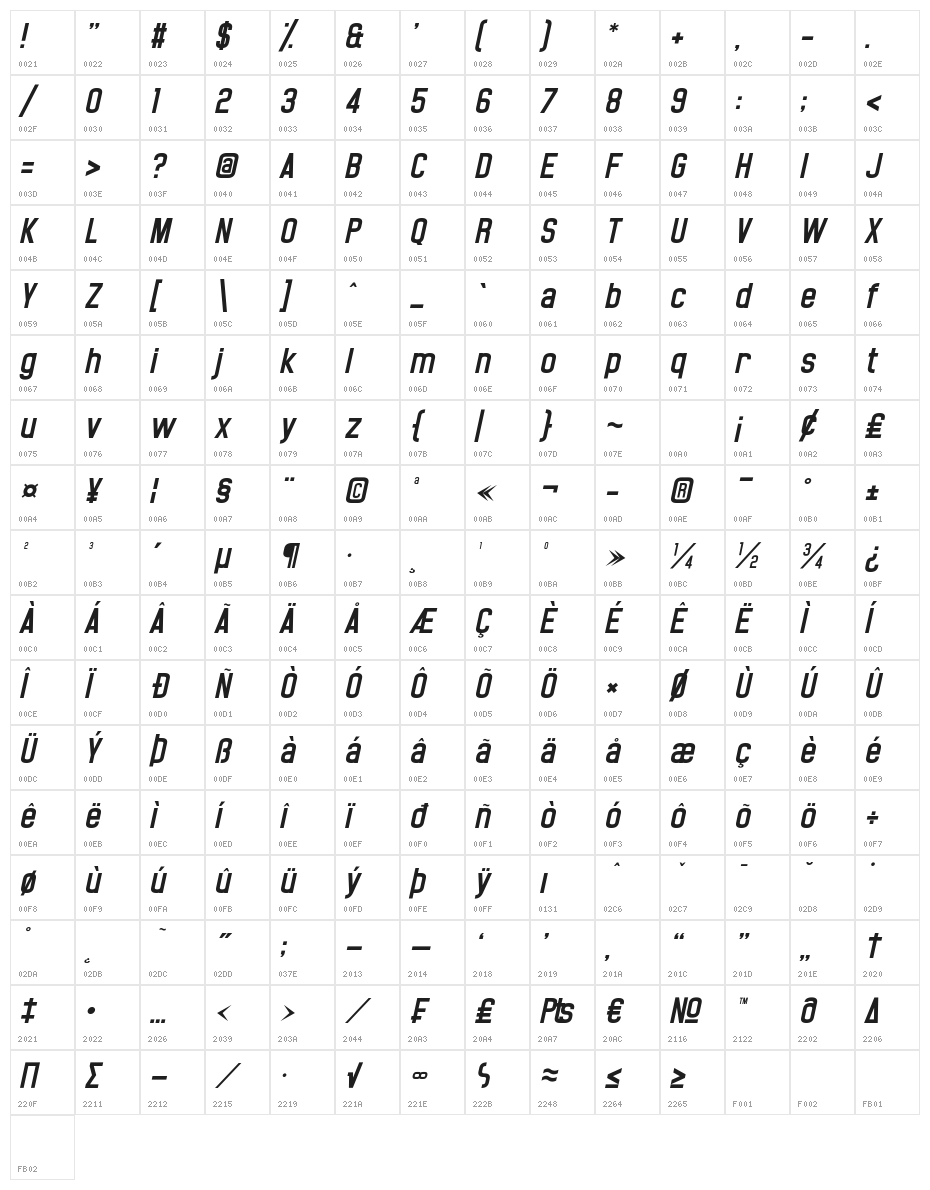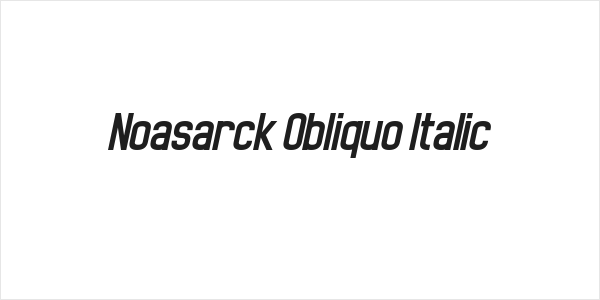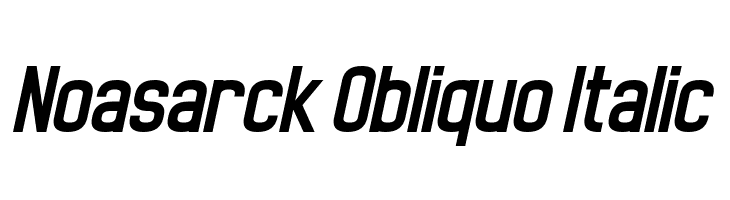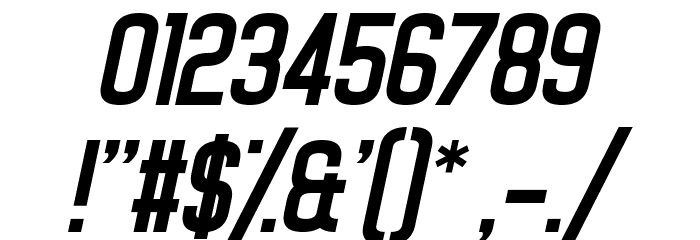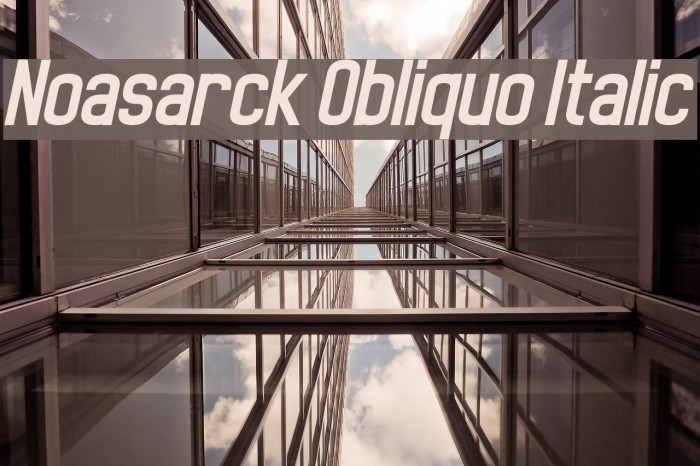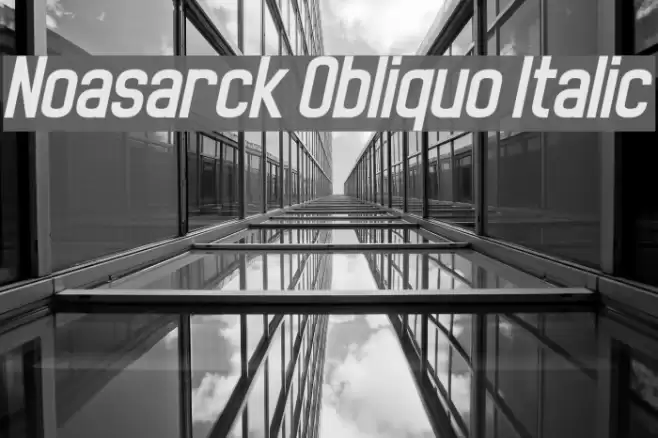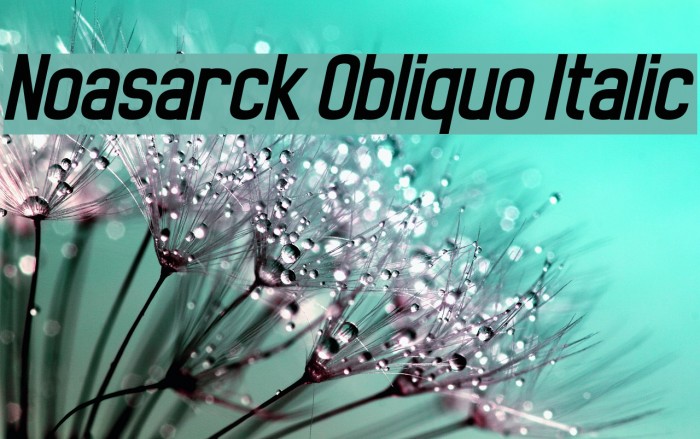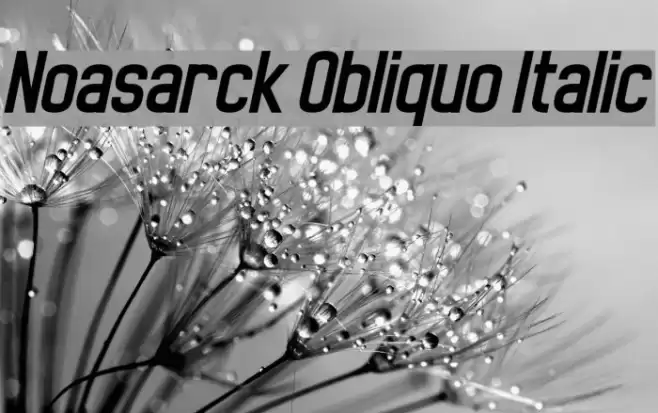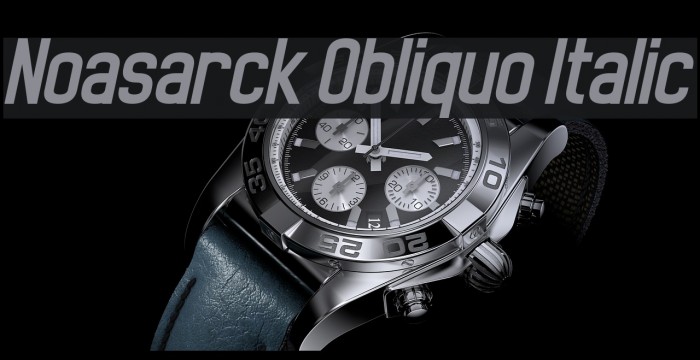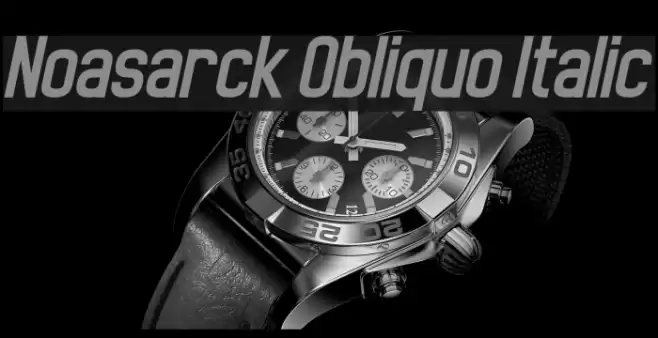
Noasarck Obliquo Italic Font
Noasarck Obliquo Italic Description
This font exhibits a modern and dynamic style with a distinct italic slant, giving it a sense of motion and energy. The characters are bold and slightly condensed, which enhances their impact and readability. The uppercase and lowercase letters maintain a consistent design, with clean lines and sharp angles. The numerals and special characters are well-integrated, matching the overall aesthetic. This font's design is suitable for creating a strong visual presence, making it ideal for headlines and branding.
| Use Case | Headlines, Logos, Branding |
| Proposed Projects | Ideal for branding, advertising, sports-related designs, and dynamic headlines. |